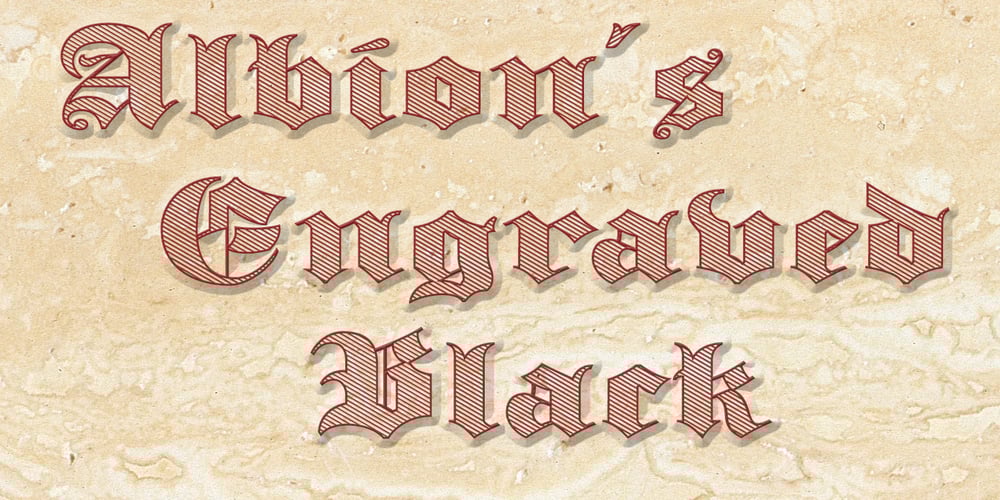
Albion’s Engraved Black
Albion’s Engraved Black font
Albion’s Engraved Black Font Family was designed by Paul James Lloyd and published by Greater Albion Typefounders. Albion’s Engraved Black contains 1 styles and family package options. Albion’s Engraved Black is a tribute to the Banknote Engraver’s art – it is a heavily constructed black letter face assembled of diagonal shading. Another splendid Black letter display face, ideal for formal or less formal use.